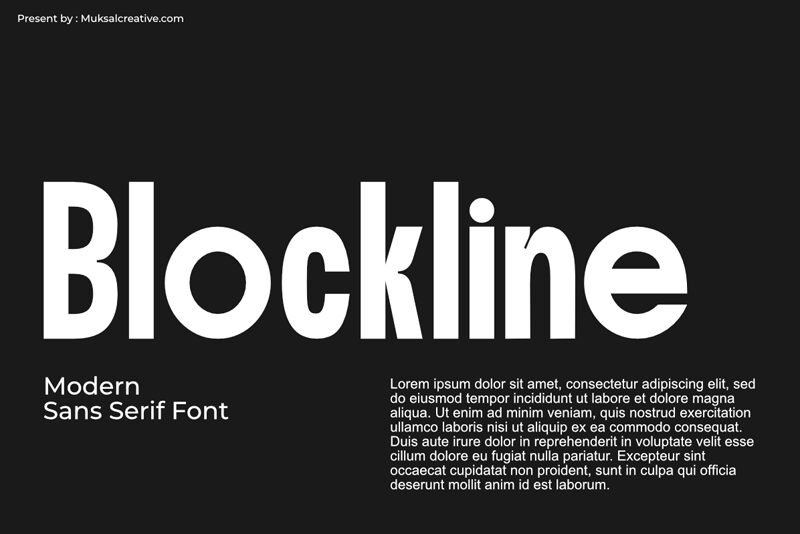
Blockline font by Muksal Creative is a free sans serif typeface made in a contemporary minimalist style. With its geometric forms and strategic letter spacing, its looks are impactful and highly noticeable without ever being aggressive. You will find the font’s body is stable, and the overall style is of a modern and clean sans serif. From brand names to complex body paragraphs, Blockline will work equally well across both.
The font is suitable for basic brand designs such as logo suggestions, slogans, or even typography that’d be used on packagings. Due to its stability and impactful appearance, Blockline is perfect for web designs of all kinds whether they’re for personal websites or e-commerce sites. User dashboards and interfaces like mobile apps and software, in general, are also areas where you might want to have a look at how you can incorporate the font.